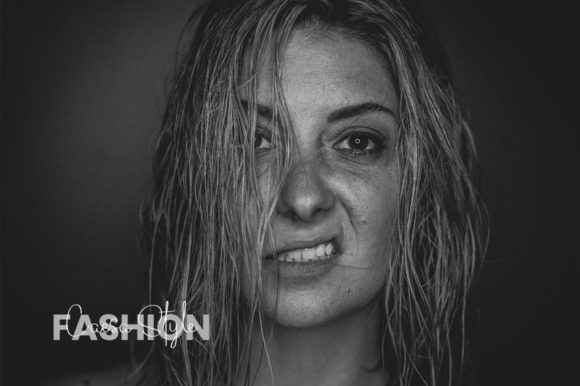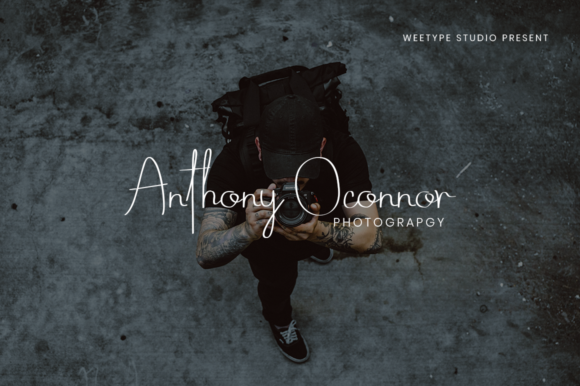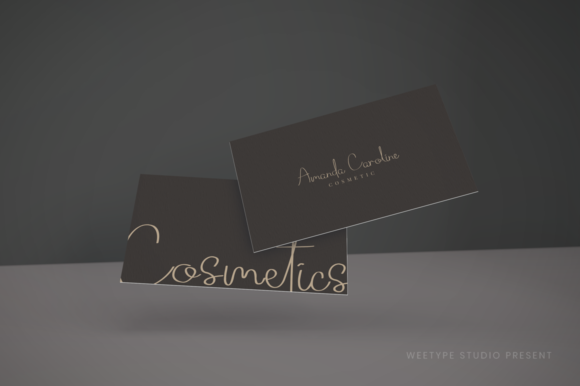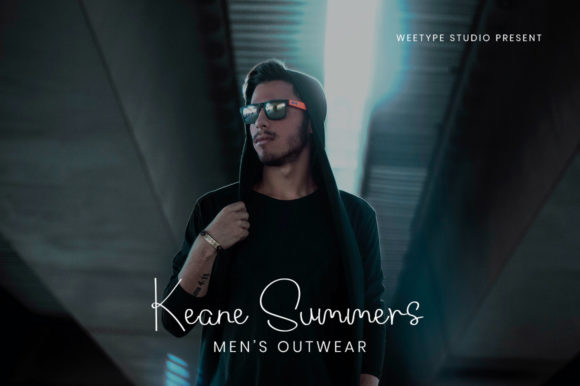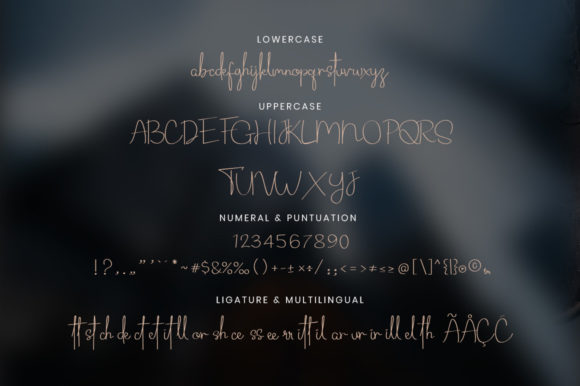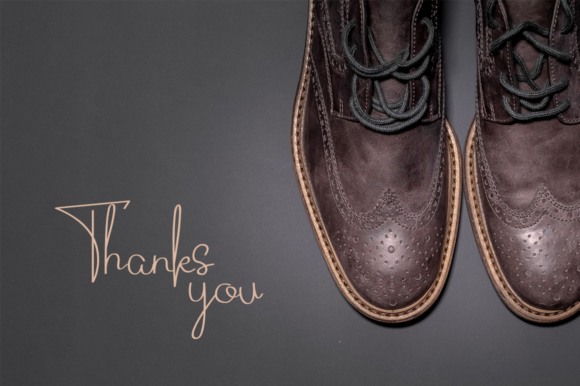
About Routhem Font
Routhem Script consists of a fashionable and sophisticated signature-style script with its own unique curves and an elegant inky flow.
It is perfect for photography, watermark, social media posts, advertisements, logos & branding, invitation, product designs, labels, stationery, product packaging, special events or anything that needs a handwritten taste.